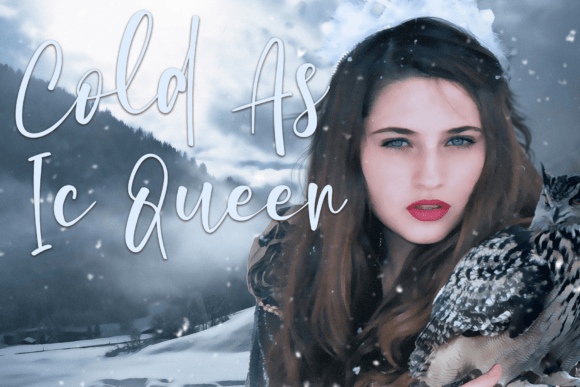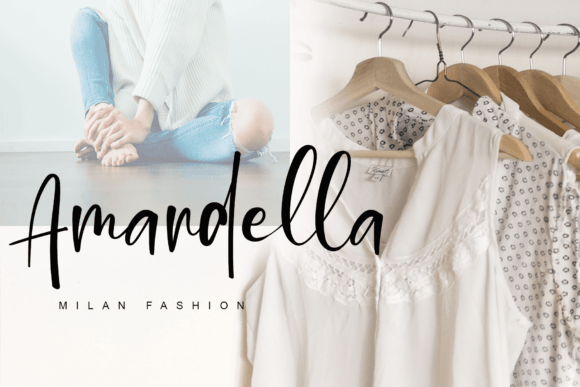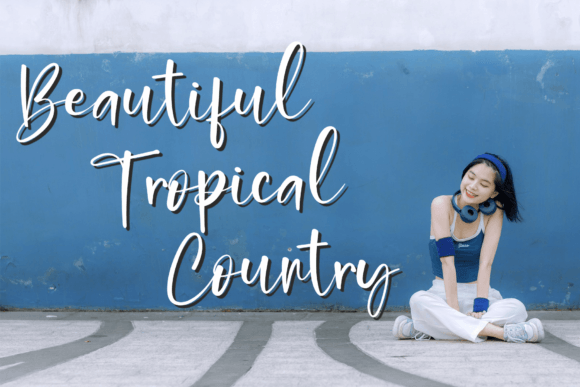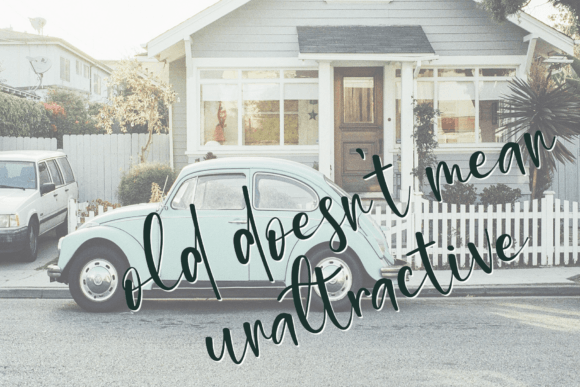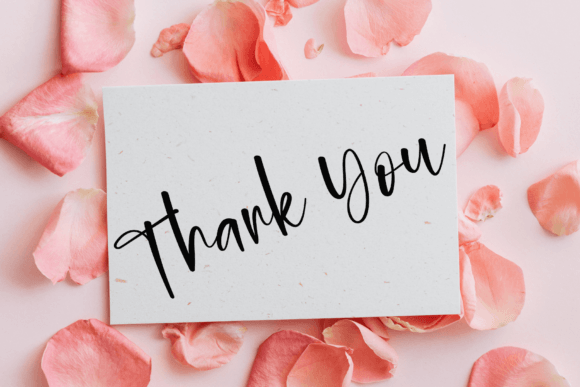
Rain Font
About Rain Font
“Rain” is a fresh and beautiful handwritten font, crafted for various design purposes such as YouTube banners, cover logo mockups, wedding invitations, ID cards, flyers, and crafts. This font not only adds aesthetic appeal to your designs but also has the potential to contribute to the progress and development of your business. Its simplicity and uniqueness make it a versatile choice for a range of creative projects.
The freshness of Rain brings a vibrant and lively feel to your text, making it suitable for dynamic and visually engaging design elements. Whether you’re creating promotional materials, event invitations, or branding, this font is designed to elevate your content with its beautiful handwritten style.
The simplicity and uniqueness of Rain make it stand out while maintaining an approachable and versatile quality. It adds a personal touch to your designs, creating a connection with your audience.
In summary, Rain is more than just a font; it’s a design asset that infuses freshness and beauty into your projects. Let Rain be the choice that enhances your YouTube banners, logos, invitations, and more, bringing a touch of simplicity and uniqueness that sets your designs apart and contributes to the progress of your business.